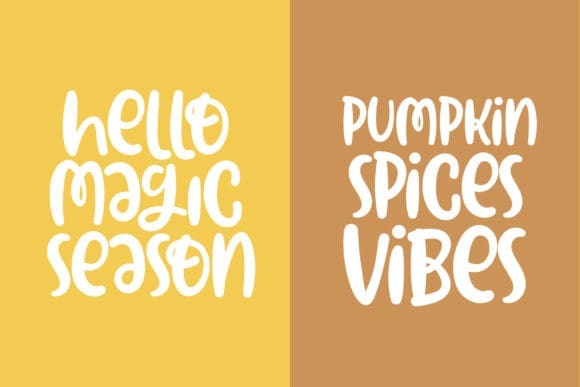
Hello Yellow Font
Hello Yellow Font is a trendy handwritten font. Whatever the topic, this font will be a wonderful asset to your font library, as it has the potential to enhance any creation.